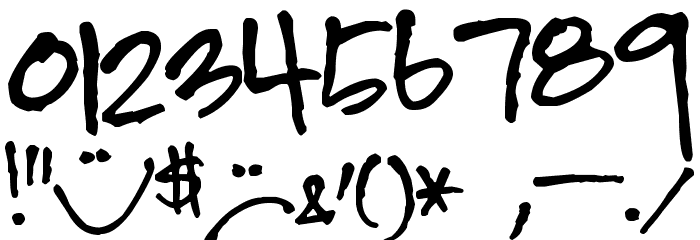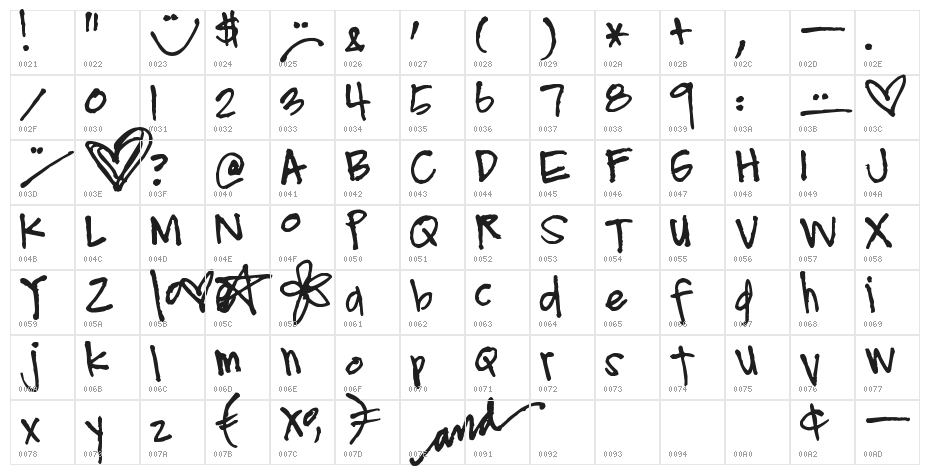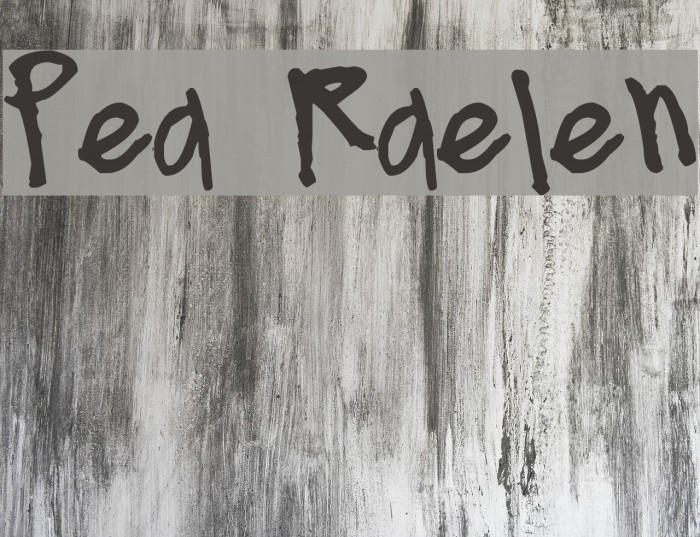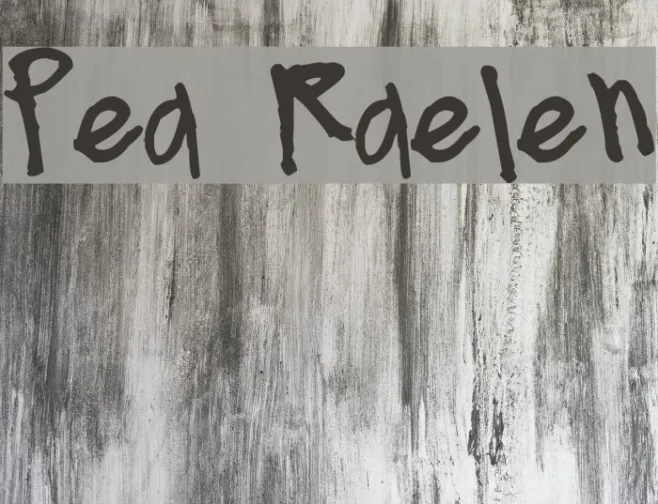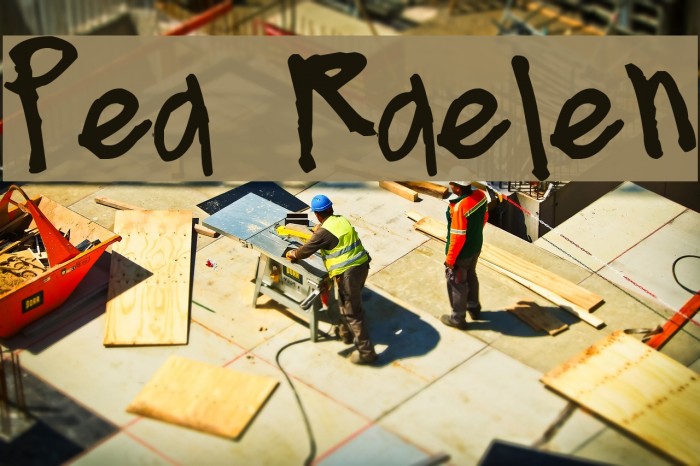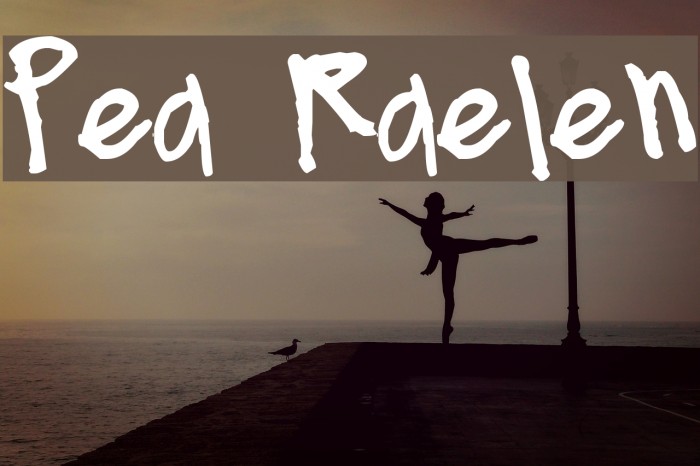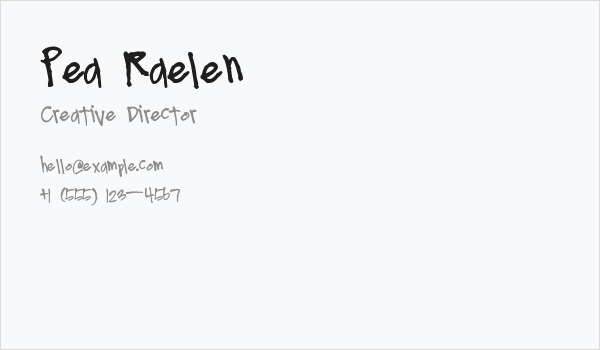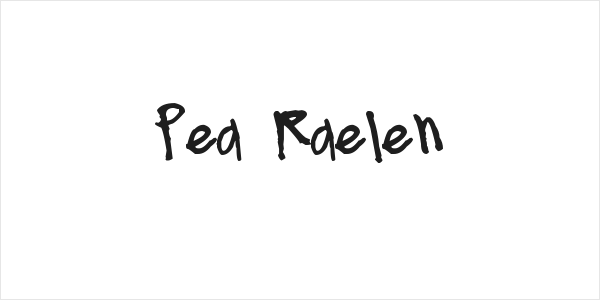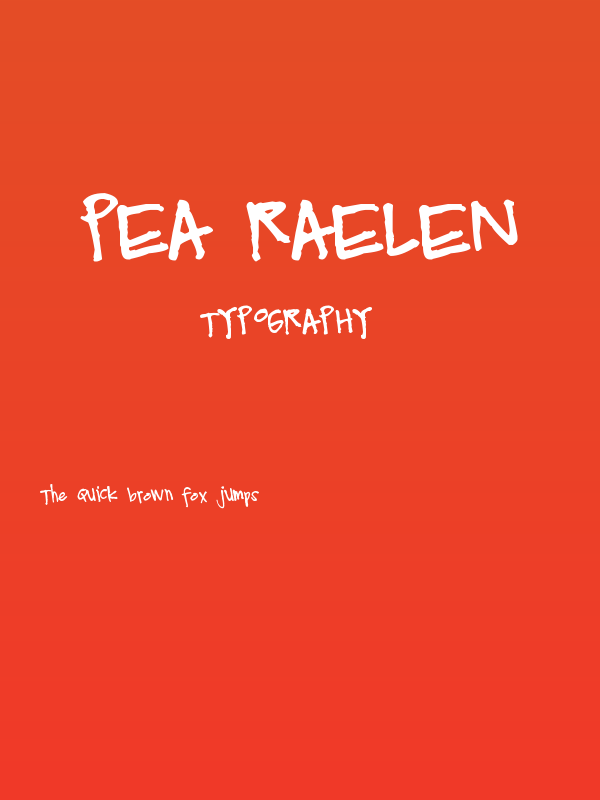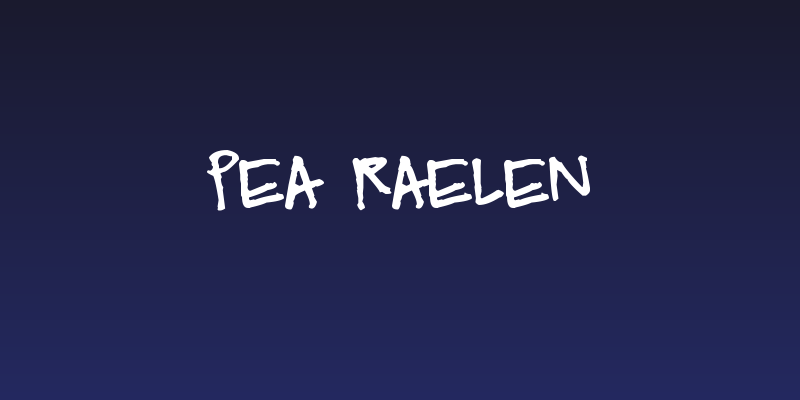
Pea Raelen Font
Pea Raelen Description
This font exudes a playful and casual handwritten style, characterized by its irregular and dynamic strokes. The letters have a spontaneous and lively appearance, with varying thickness that adds to its charm. The uppercase and lowercase letters maintain a consistent flow, while the numbers and special characters complement the overall aesthetic. The font's informal nature makes it ideal for projects that require a personal touch, such as greeting cards, invitations, or playful branding. Its unique style captures attention and conveys a sense of creativity and fun.
| Proposed Projects | Ideal for greeting cards, invitations, playful branding, and creative projects. |